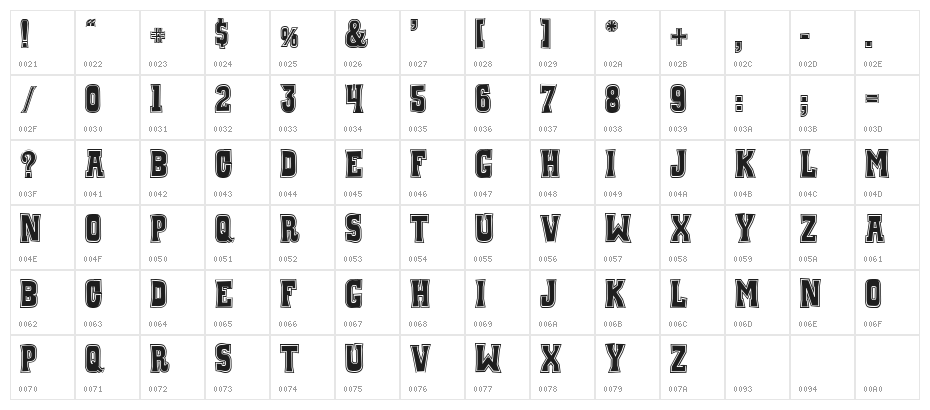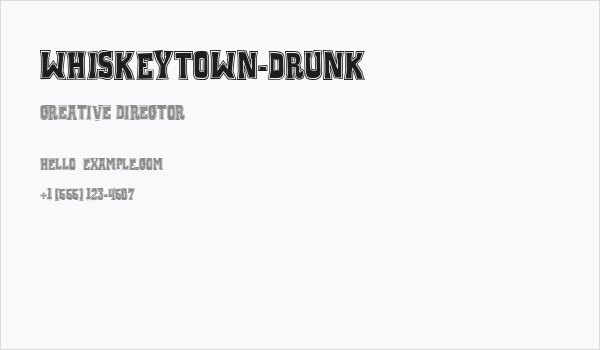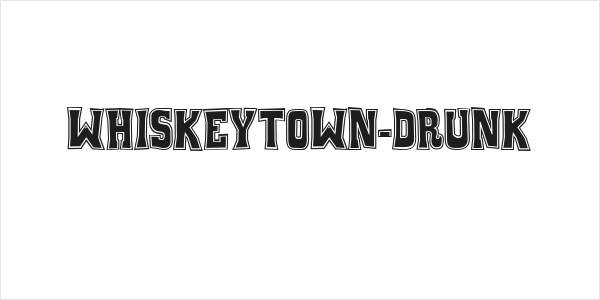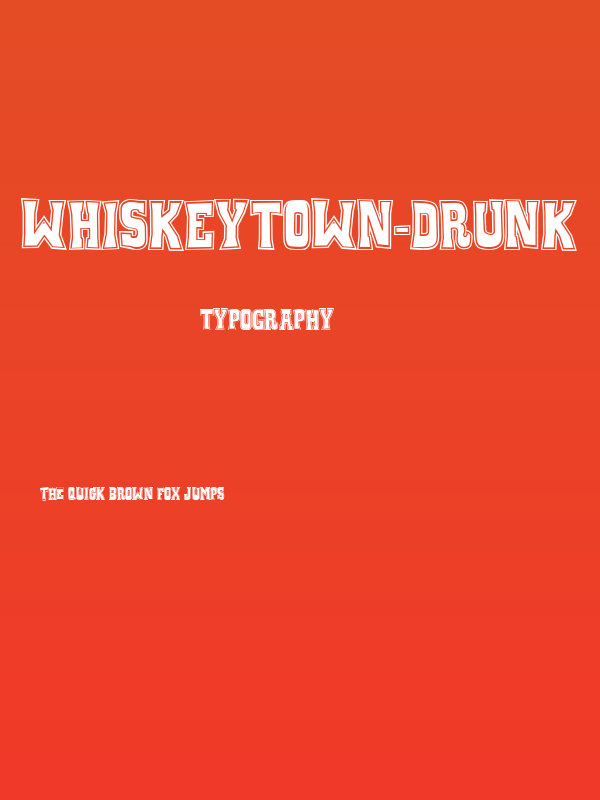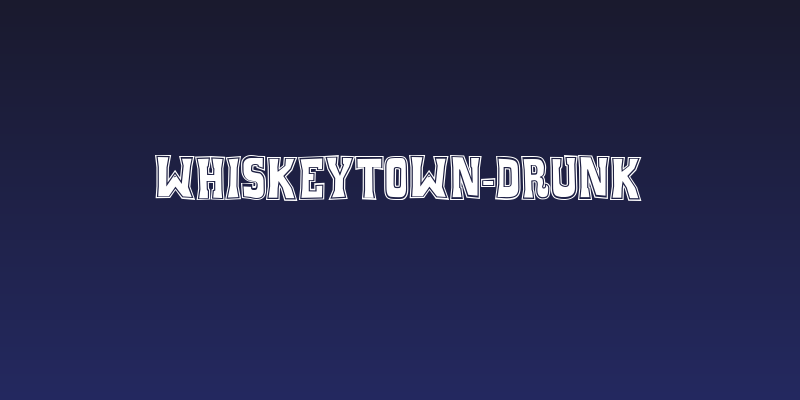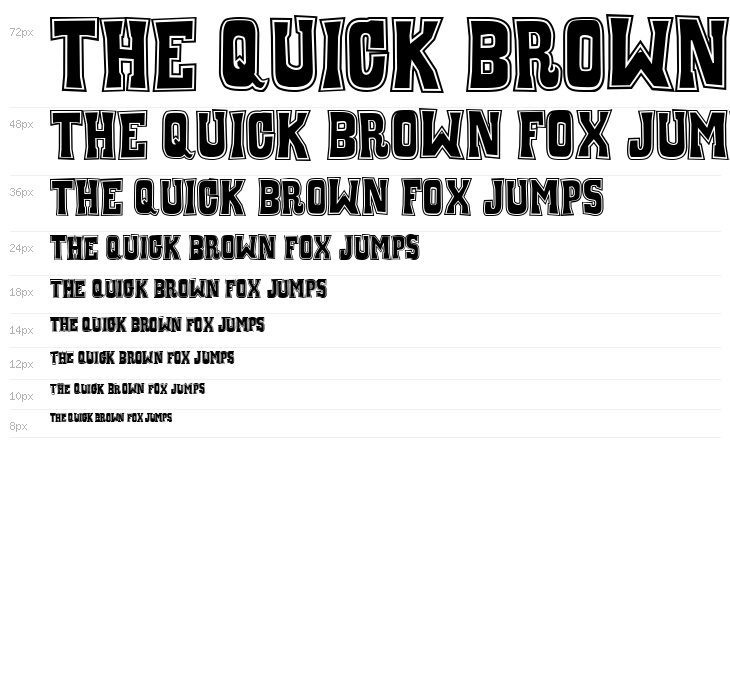
WhiskeyTown-Drunk Font
WhiskeyTown-Drunk Description
This font features a bold, decorative style with a strong presence, characterized by thick strokes and a shadow effect that gives it a three-dimensional appearance. The uppercase letters are particularly striking, with angular serifs and a blocky structure that commands attention. The numbers and special characters maintain the same boldness and decorative flair, making them suitable for eye-catching designs. The font's overall aesthetic is reminiscent of vintage signage or posters, evoking a sense of nostalgia and bold expression.
| Proposed Projects | Ideal for vintage-themed posters, signage, branding projects, and any design requiring a bold, eye-catching typeface. |